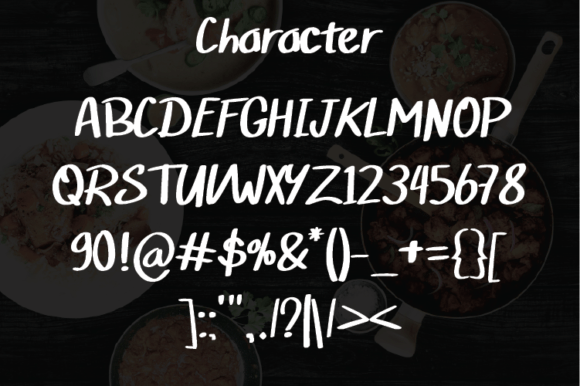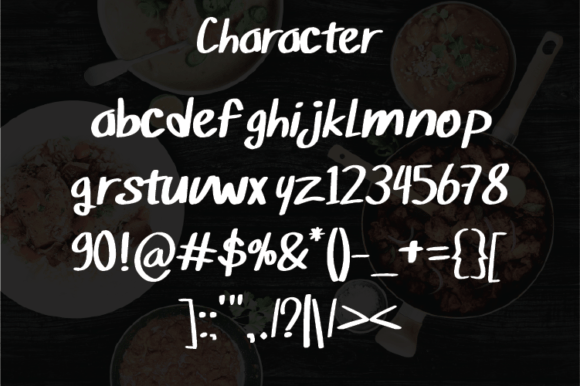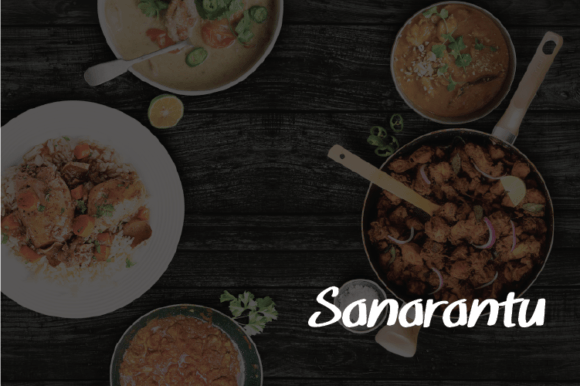
Introduction to Sanarantu Font
Sanarantu is a script font that has a simple style and modern look.
This typeface is perfect for elegant and luxurious logos, book or movie design titles, fashion brands, magazines, clothing, fonts, quotes, and more .
Sanarantu Font offers exceptional quality and versatility, making it a valuable addition to your design toolkit. Whether you’re creating for personal projects or commercial use, Sanarantu Font delivers professional results.